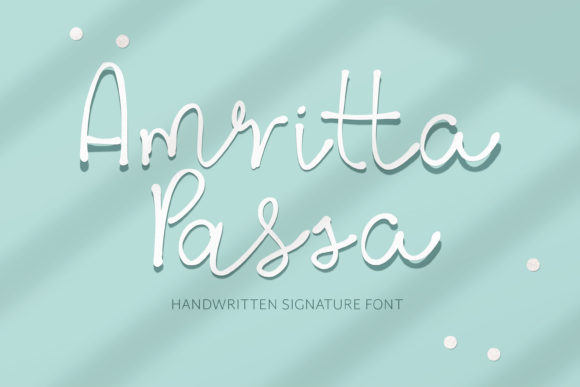
Journey into the realm of Amritta Passa, the captivating script font crafted by the masterminds at DIGI Potwor. This charming font exudes a sense of warmth and playfulness, inviting you to embrace your creativity and express yourself in a truly unique way.
Amritta Passa's enchanting strokes dance across the page, carrying a message of love, joy, and endless possibilities. Its casual handwritten style evokes a sense of authenticity, making it the perfect choice for adding a personal touch to your designs.
With Amritta Passa, you'll find beauty in the ordinary. Transform your wedding invitations into works of art, and let your stationary art come alive with its graceful curves. Create eye-catching social media posts that will captivate your audience, and craft heartfelt greeting cards that will leave a lasting impression.
Amritta Passa is more than just a font; it's an invitation to let your imagination soar. Embrace the magic of handwritten charm and bring your creative visions to life.